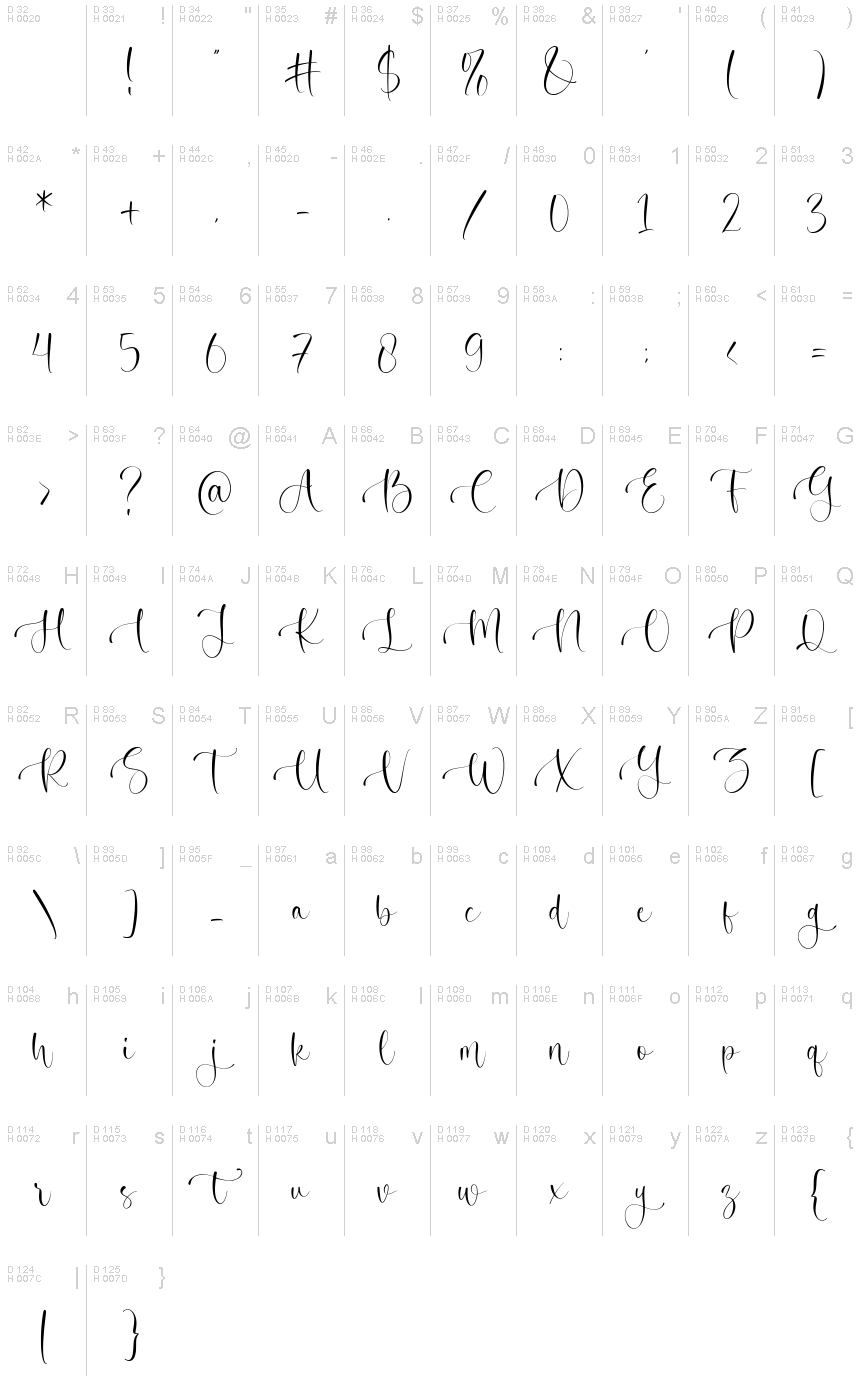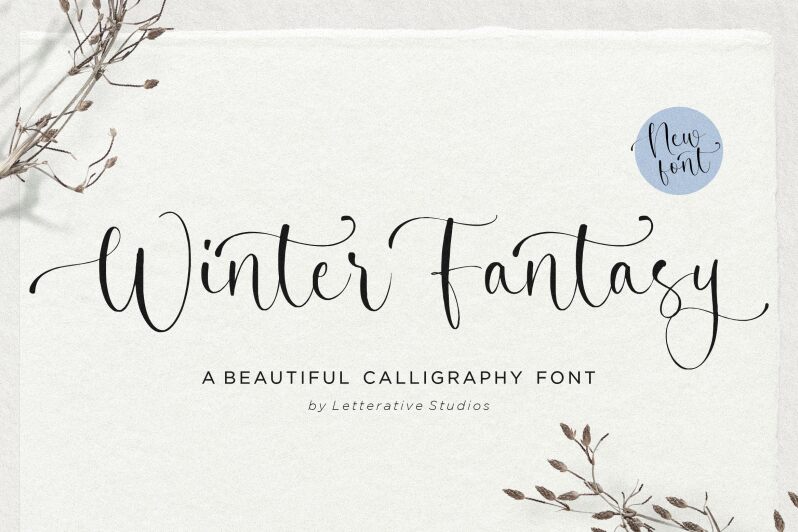
Winter Fantasy
Winter Fantasy font by Letterative Studio is a calligraphy style with a light weight. This cursive and elegant font boasts a flowing, high-contrast design that's both ornate and whimsical. Decorative swashes add to its playful mood, making Winter Fantasy versatile yet captivating. Please note that it is free for personal use.
Winter Fantasy can be used to create beautiful wedding invitations, stunning logos, quotes, social media posts and much more! It suits anything festive really! Christmas cards or weddings or even spicy Thai food truck branding :) It will make your typographic messages look really fancy so use wisely!